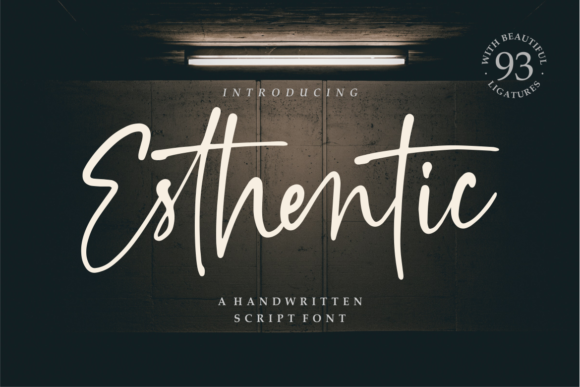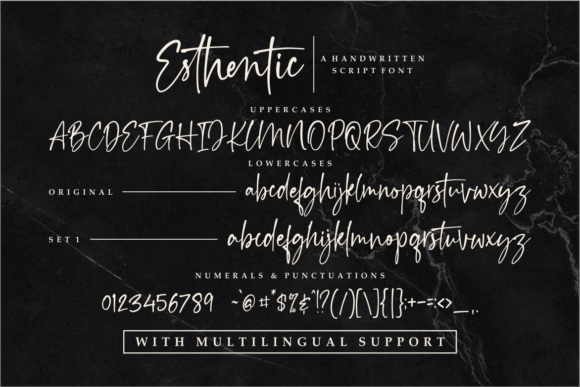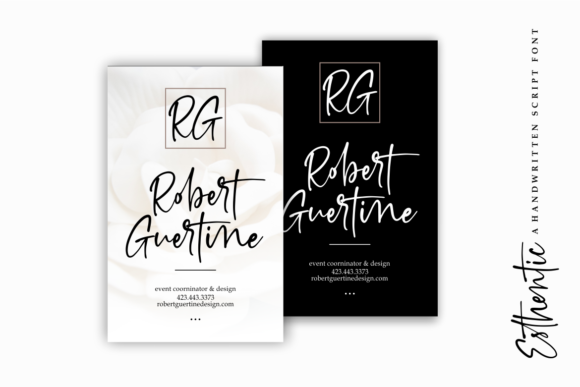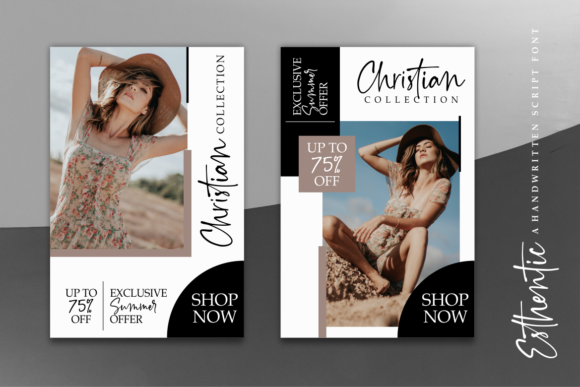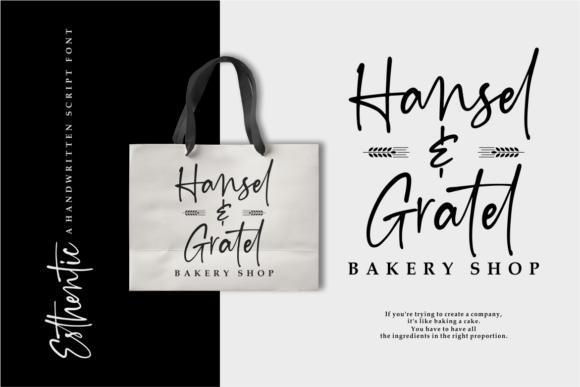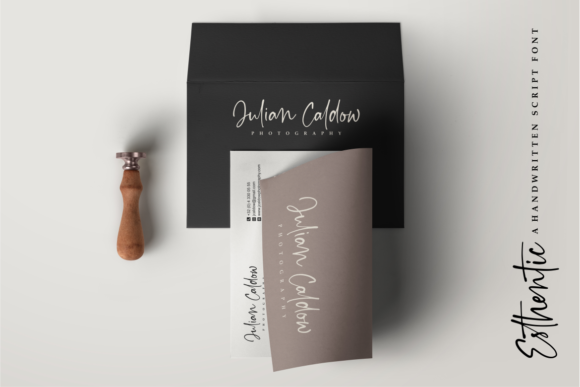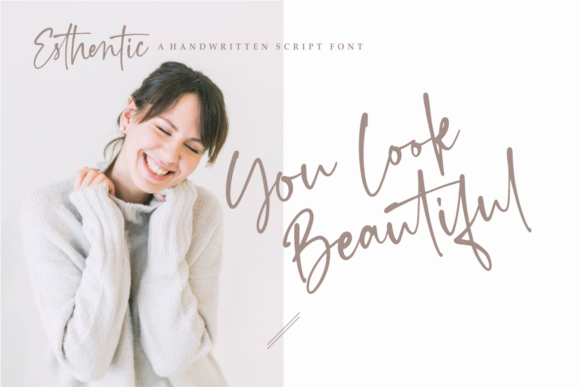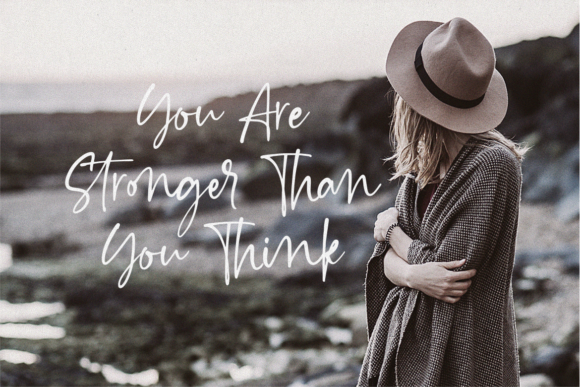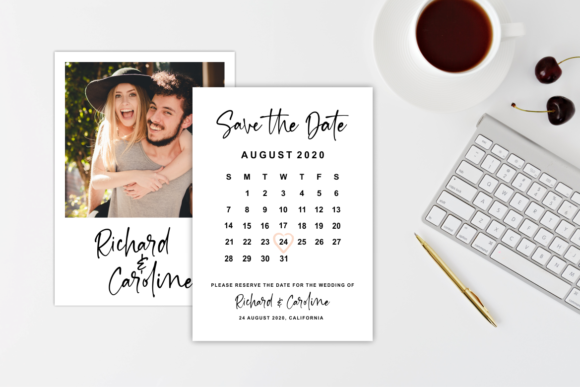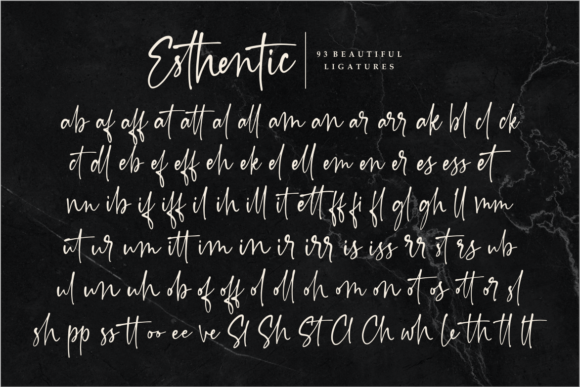
Esthentic Font
About Esthentic Font
Esthentic is a lovely and flowing handwritten font. Fall in love with its incredibly versatile style and use it to create gorgeous wedding invitations, beautiful stationary art, eye-catching social media posts, and much more!